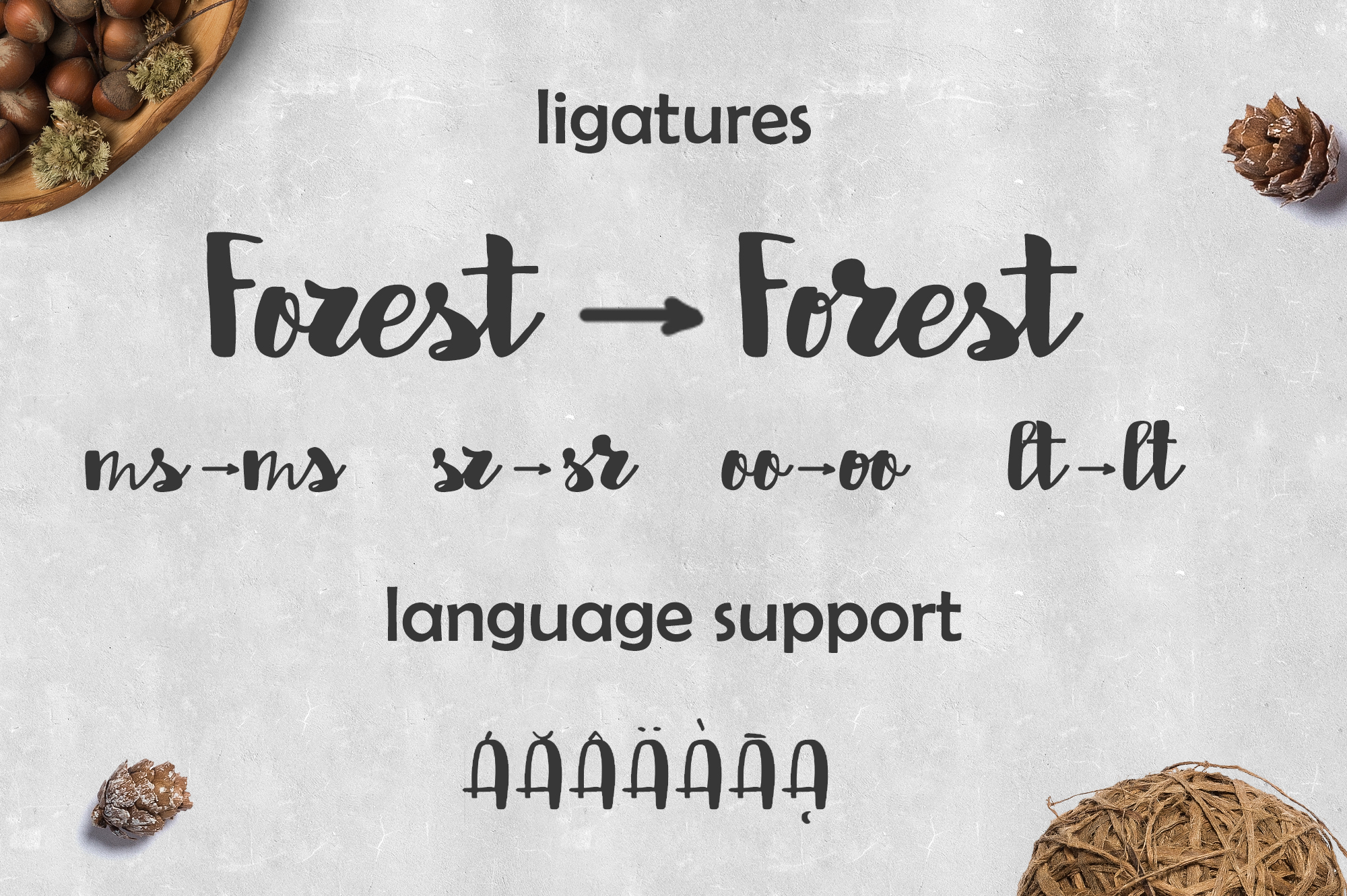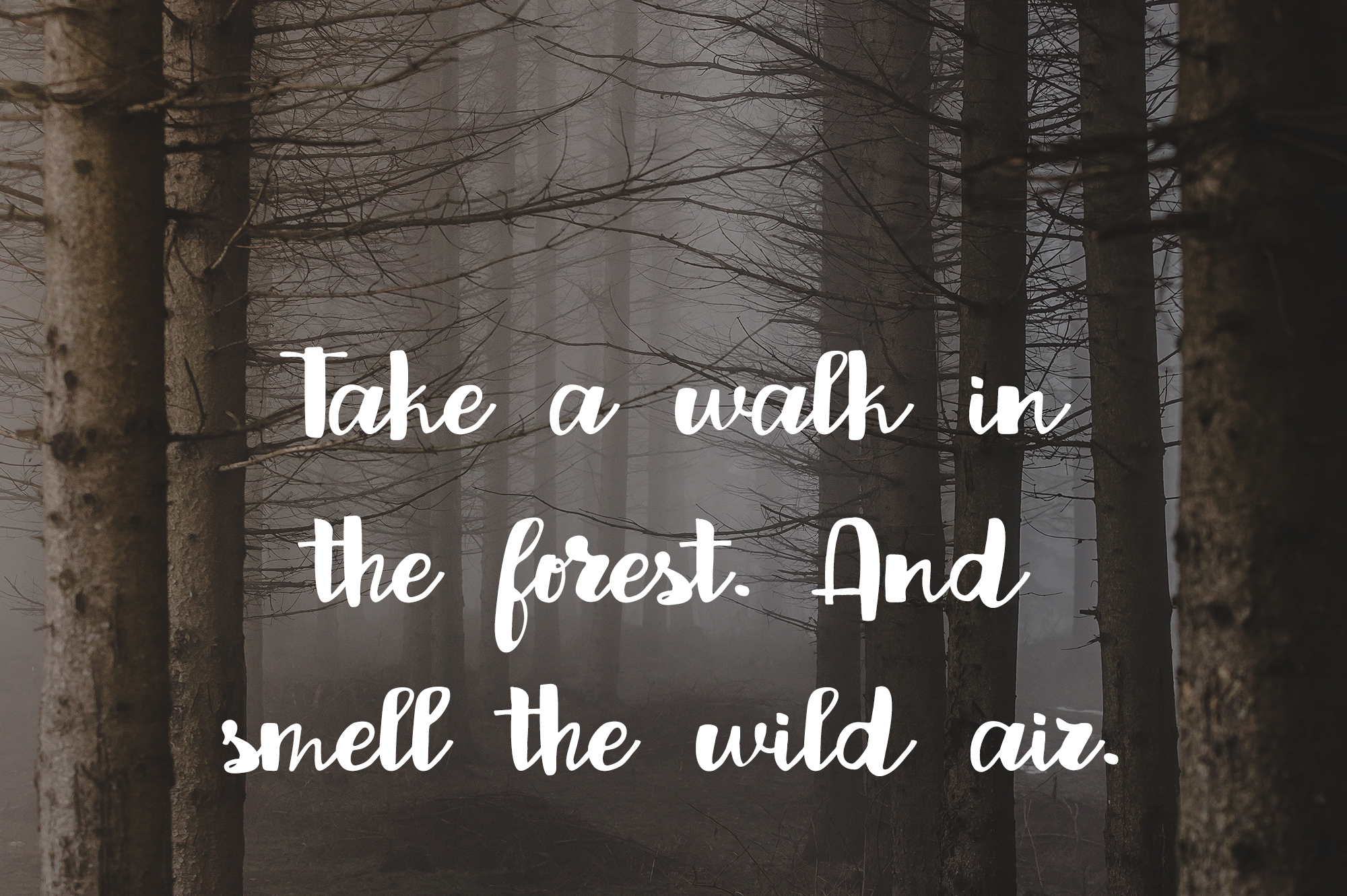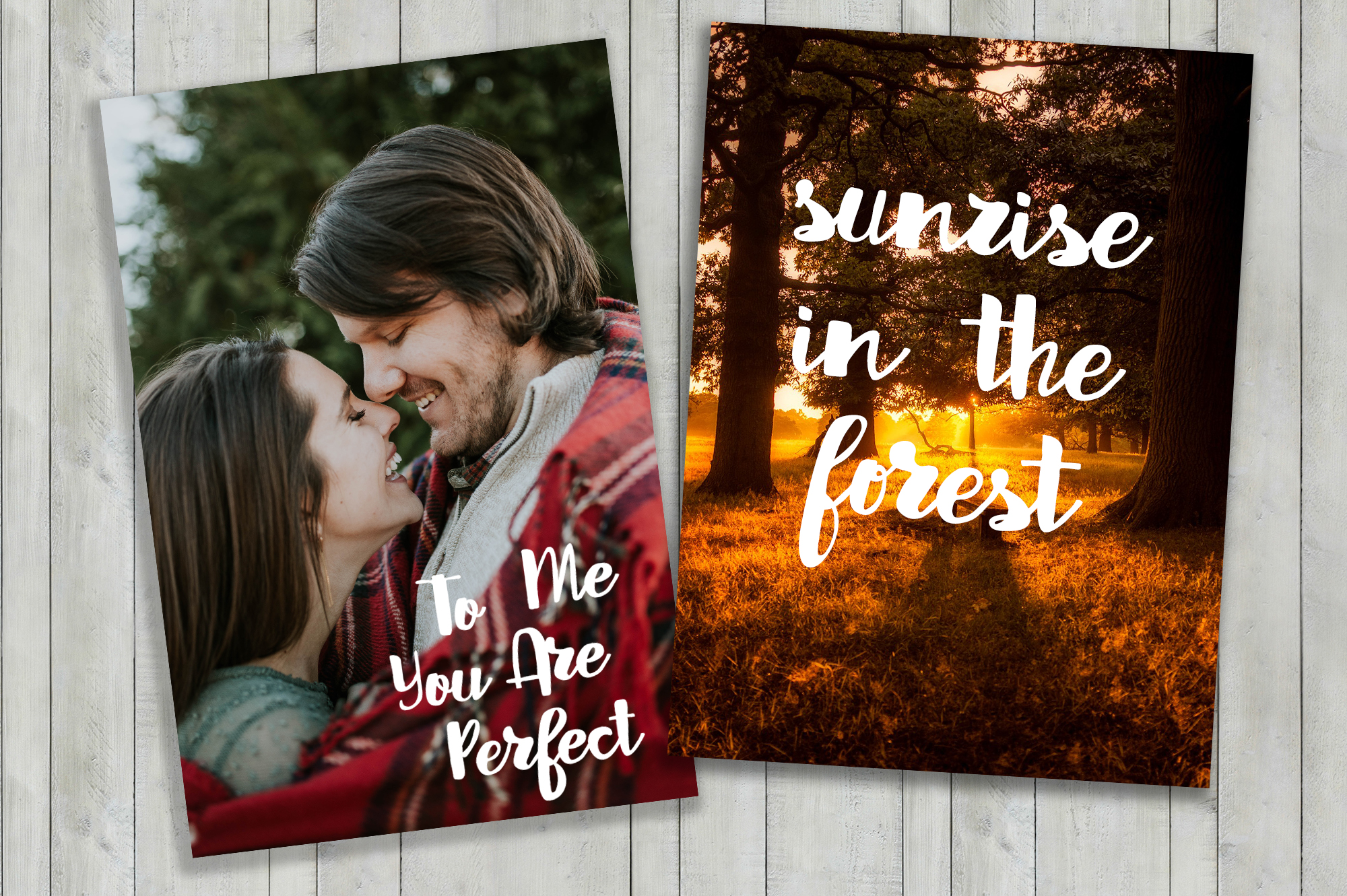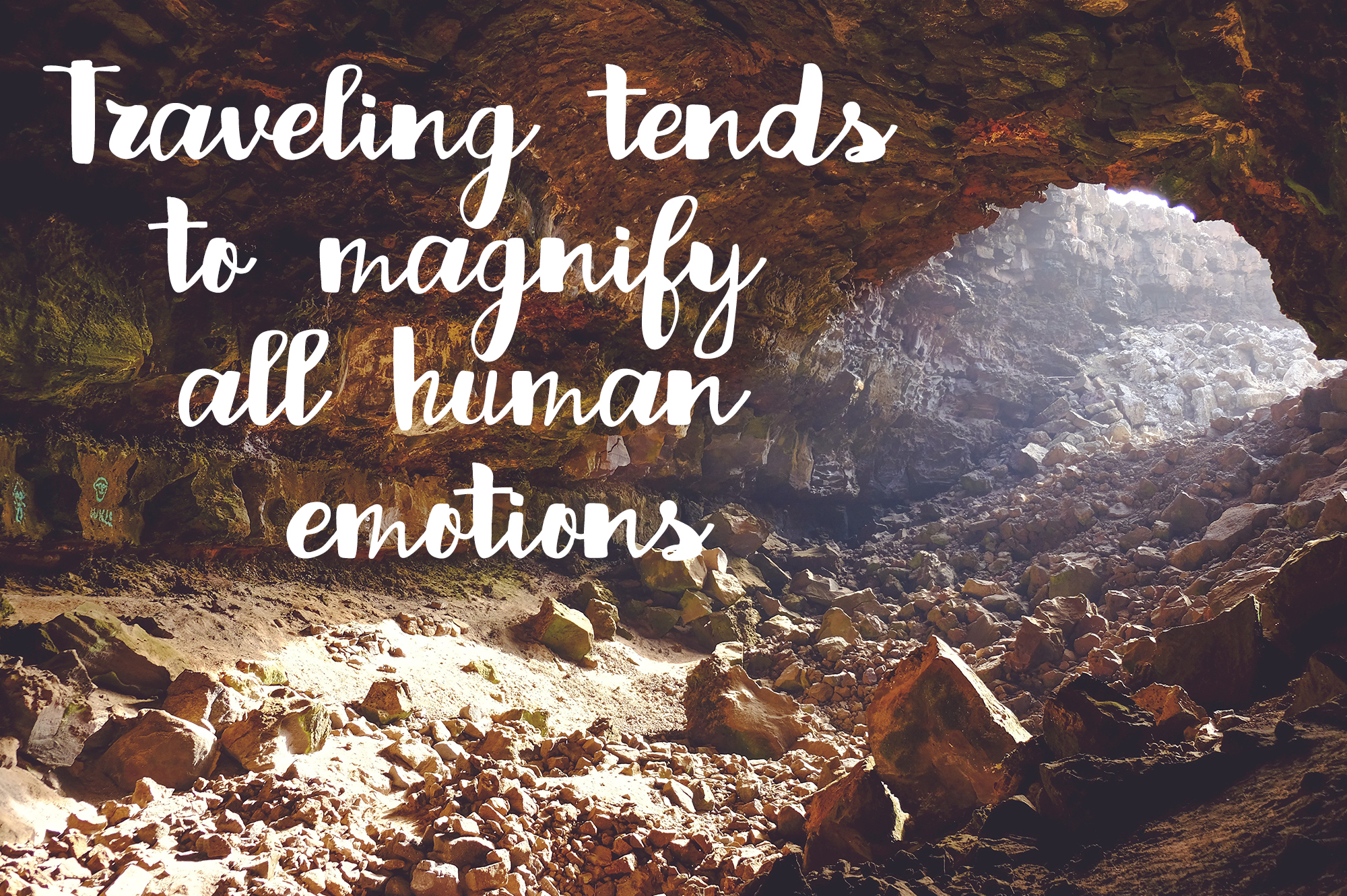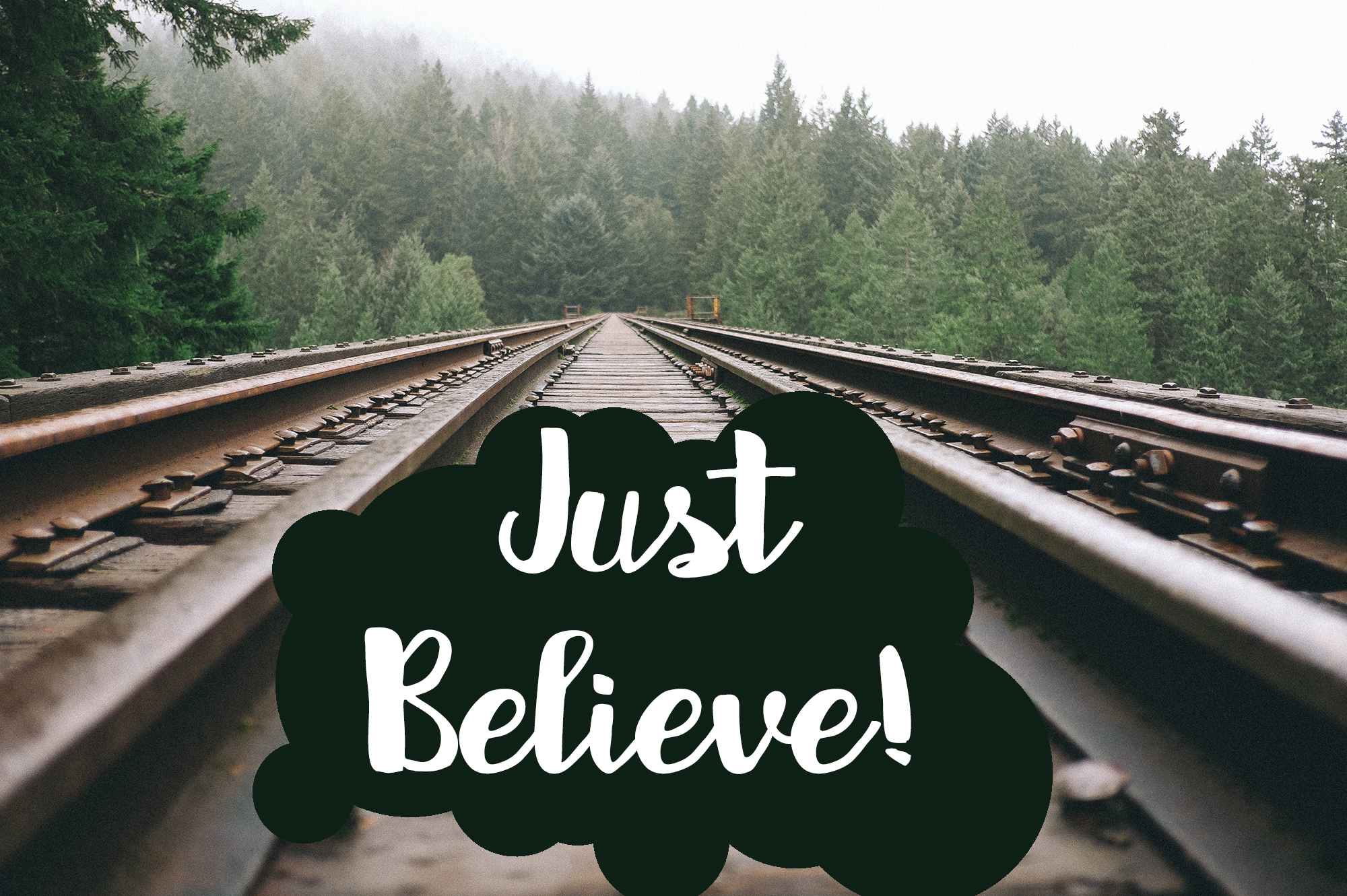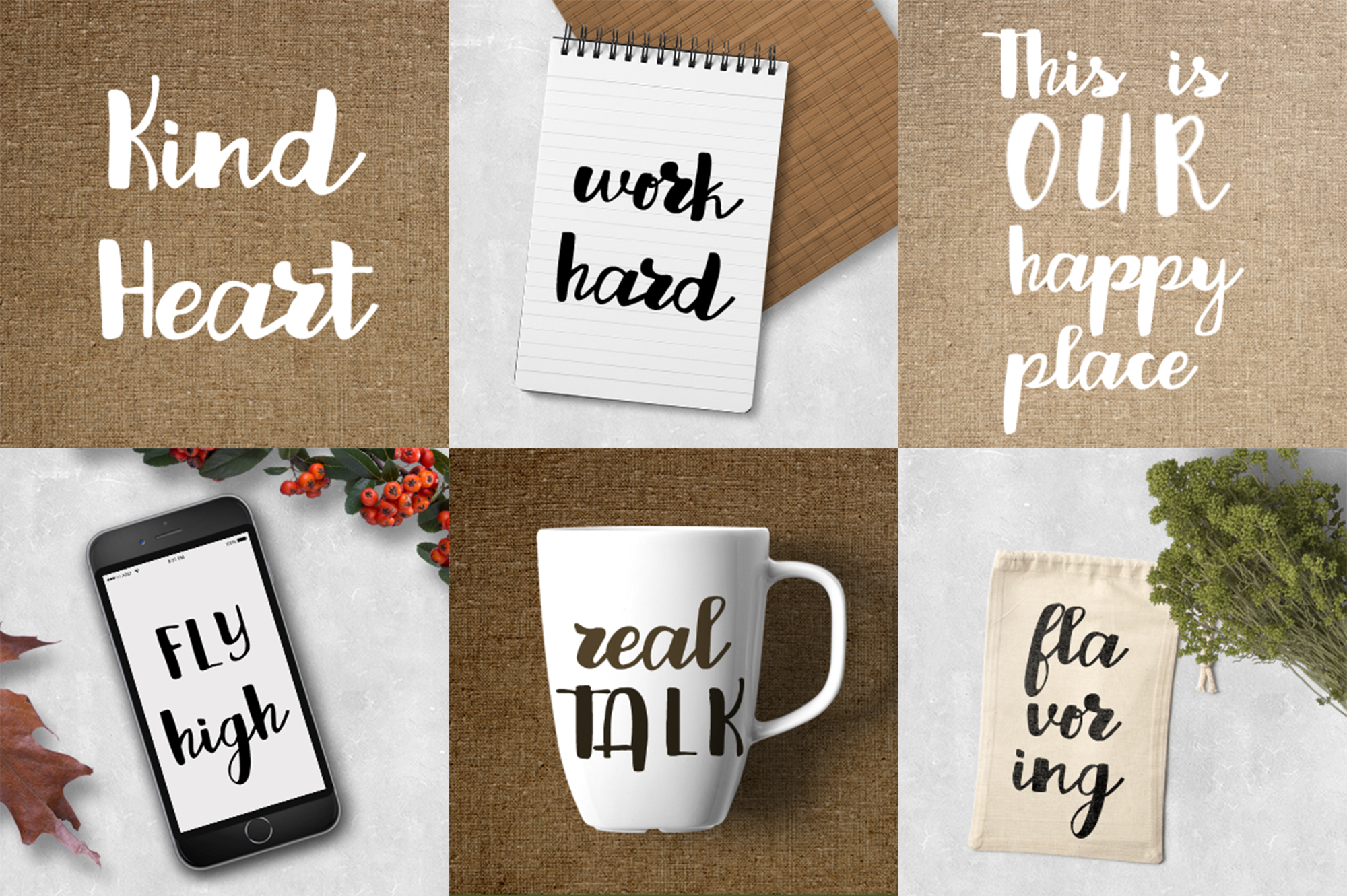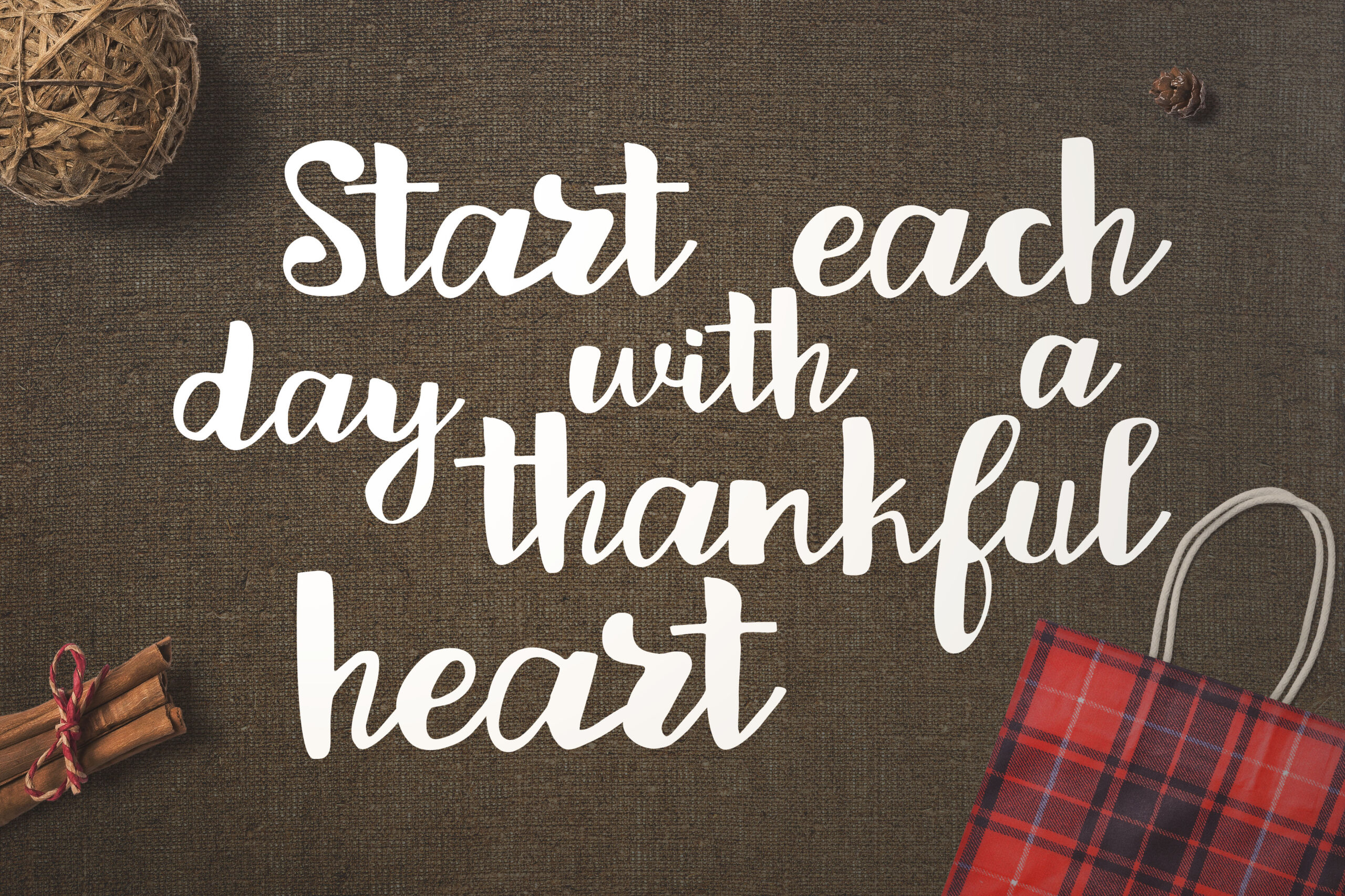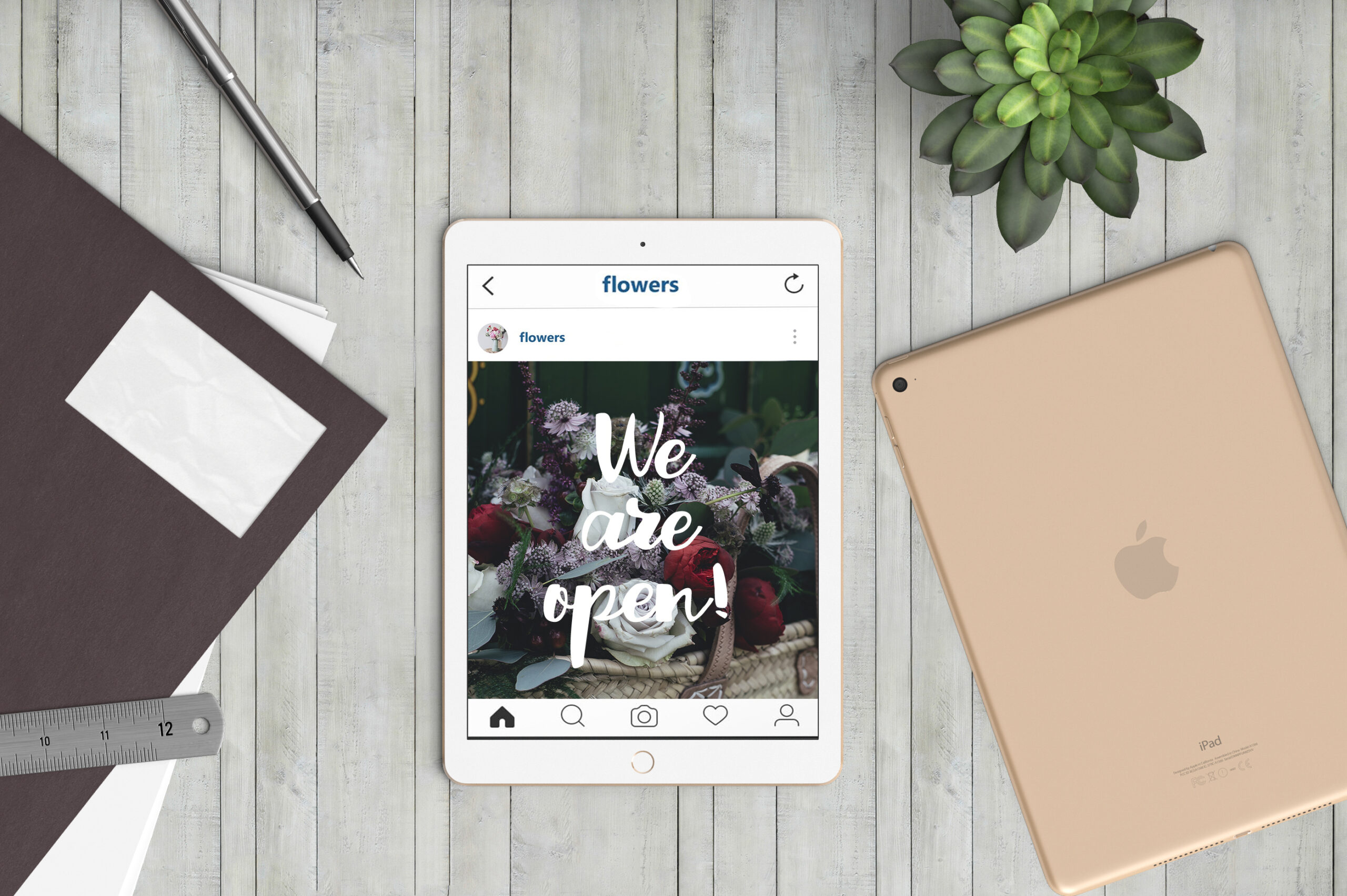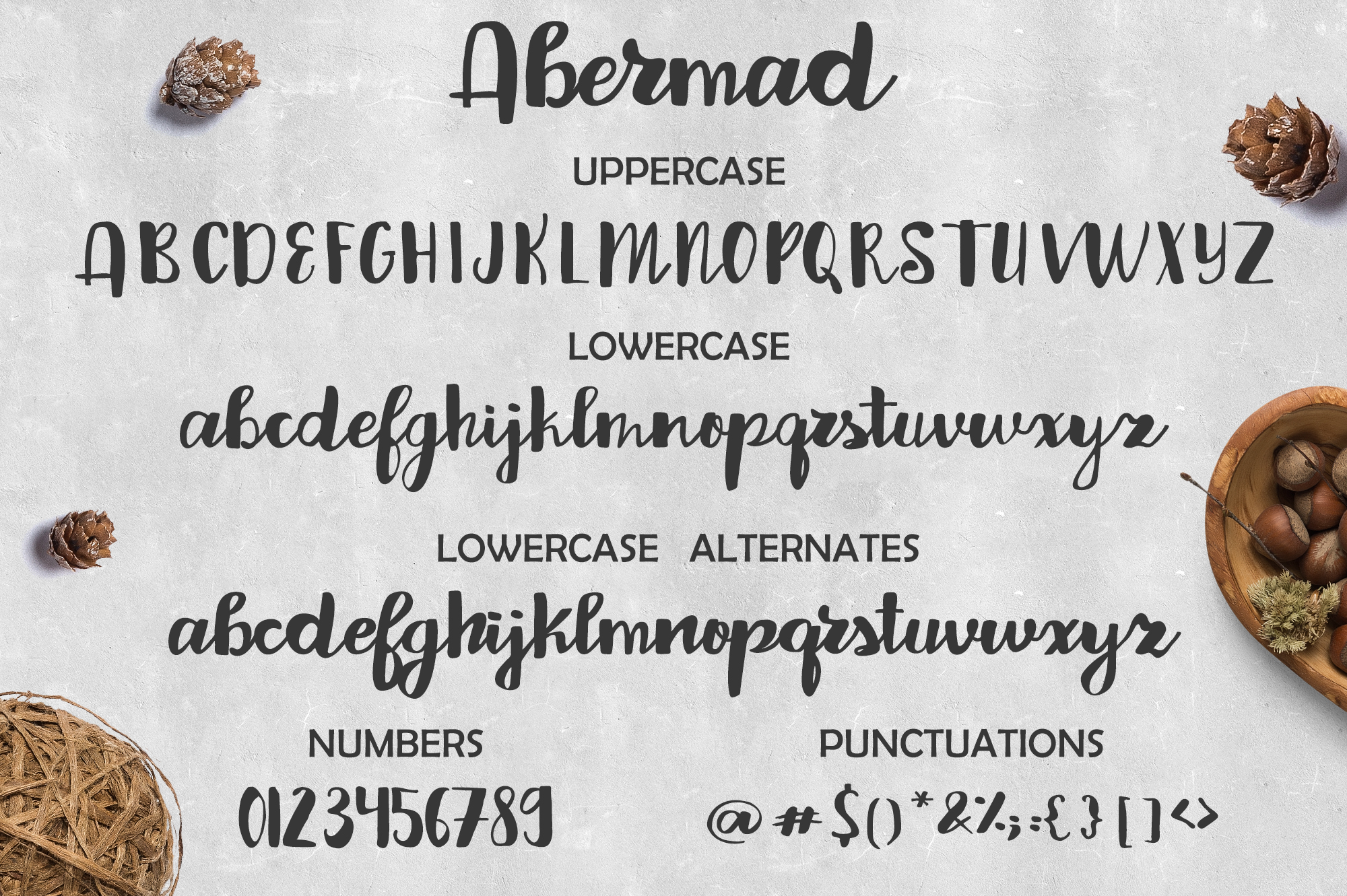
Abermad Font
About Abermad Font
Abermad is a gorgeous and soft script, handwritten for a wonderfully friendly approach to calligraphic design! This font looks stunning in larger formats, and can add a ton of charm to your designs.